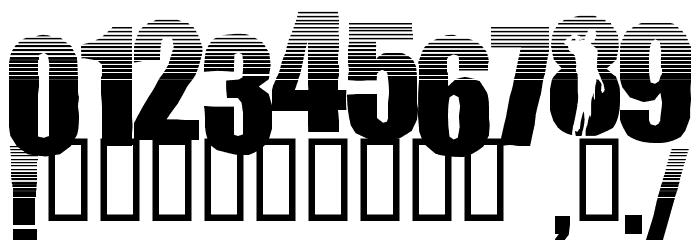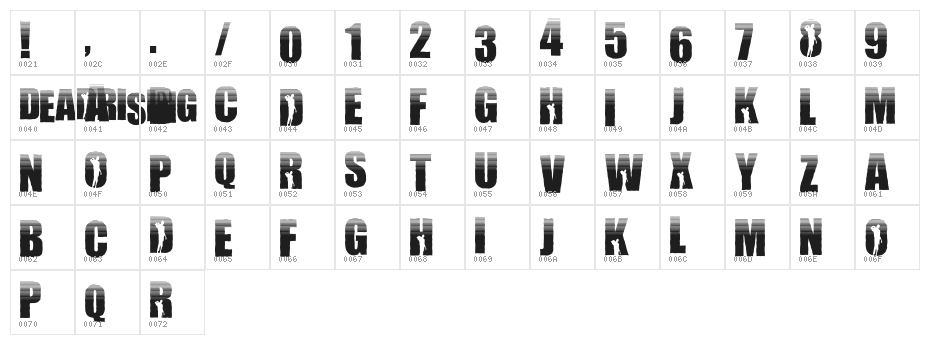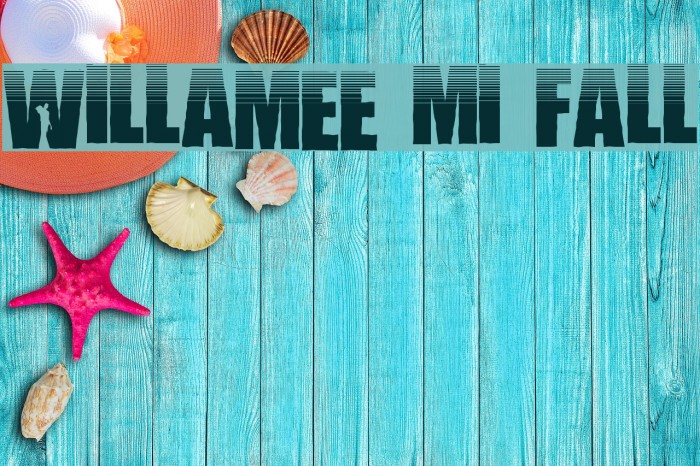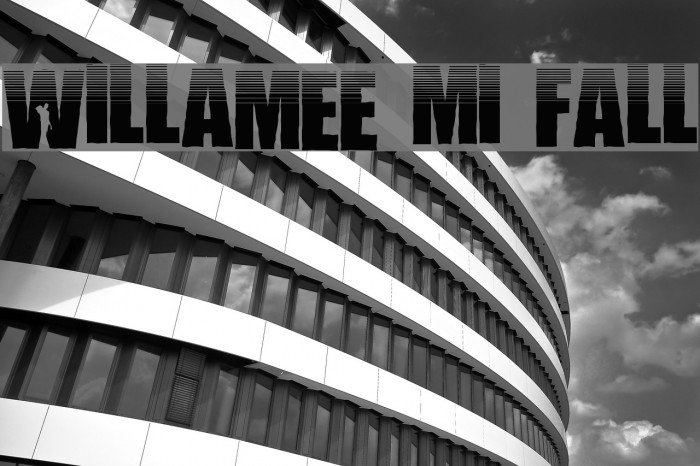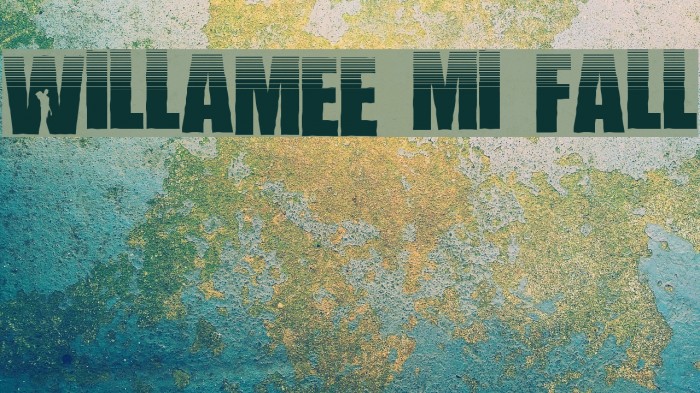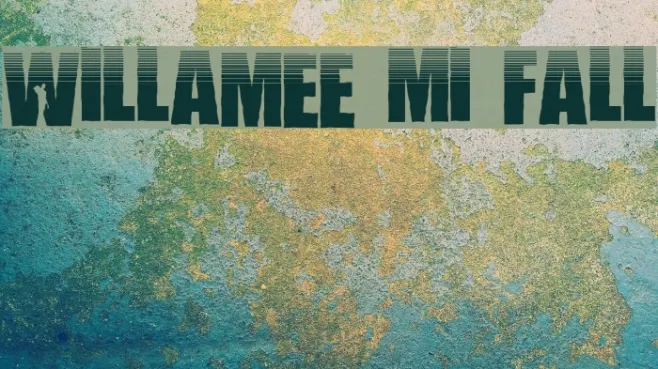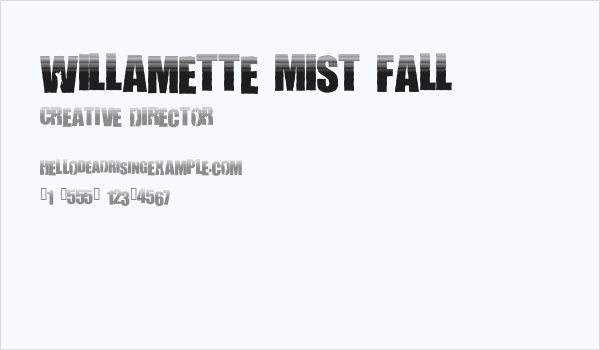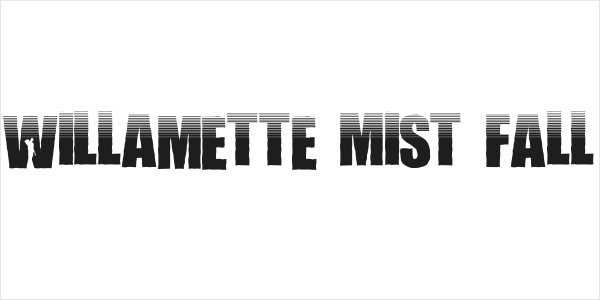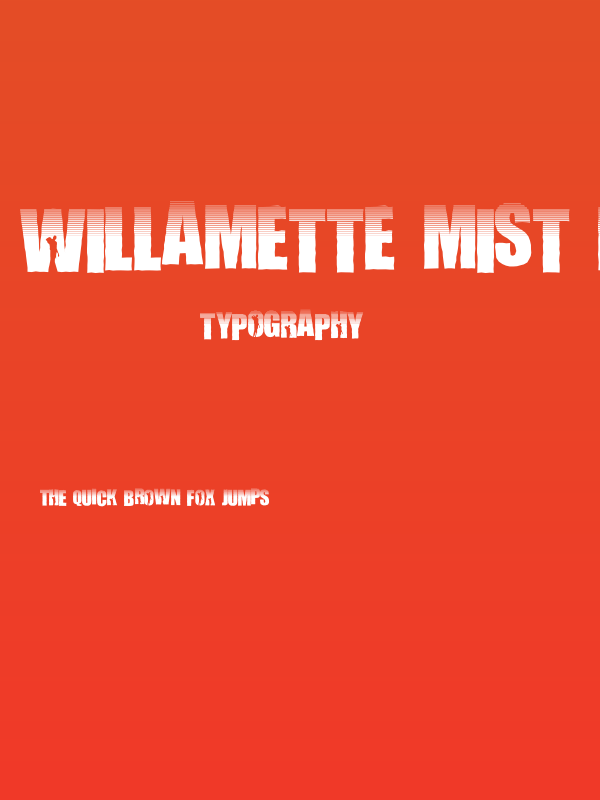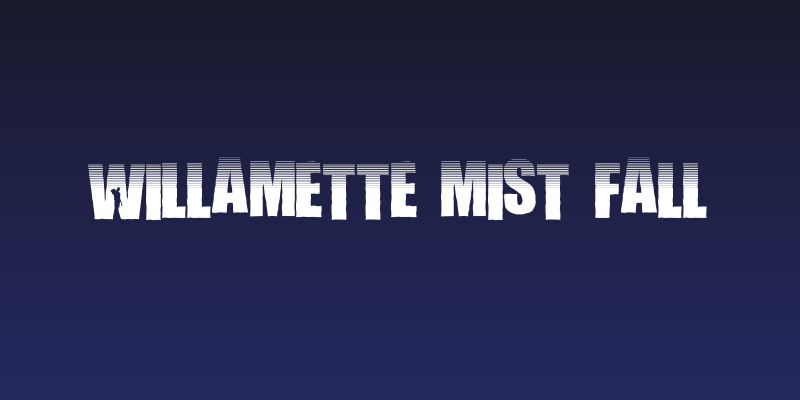
Willamette Mist Fall Font
Willamette Mist Fall Description
This font features a bold, dramatic style with a unique distressed effect. Each character is designed with a combination of solid black and horizontal lines, creating a striking visual impact. The letters appear as if they are partially eroded or weathered, adding a sense of ruggedness and texture. This design choice makes the font highly distinctive and suitable for projects that require a strong, eye-catching typeface. The uppercase letters are uniform in height, while the numbers and special characters maintain the same bold aesthetic, ensuring consistency across all glyphs. The font's overall appearance is both modern and edgy, making it ideal for creative and unconventional design projects.
| Overall Style | Modern, Edgy |
| Proposed Projects | Ideal for posters, album covers, branding projects, and any design requiring a bold, edgy typeface. |